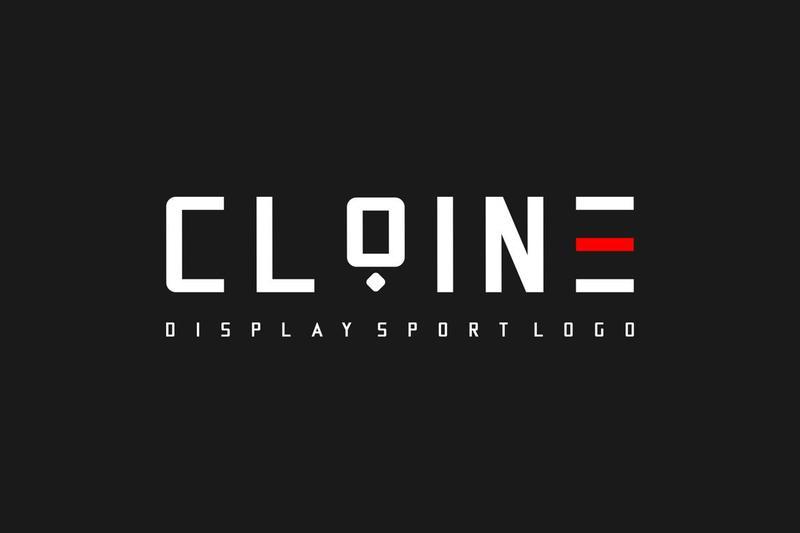
Cloine – Modern Display Font YNB3J69
Introducing our new product **Cloine** – Modern Display Font
**Cloine** – Modern Display Font is a bold and authentic display font. The font is suitable for any branding project like logo, esport, and many more. outstanding in a wide range of contexts.
* Uppercase
* Uppercase Alternate